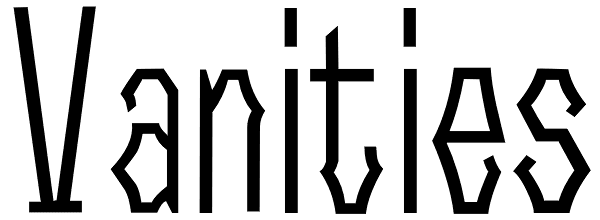
Vanities
A Victorian type which, like so many others, was originally offered without a lowercase. As we do so often, we designed a matching lowercase for it. We also added a shaded version of the caps, figures and points of our earlier Vanities font. A nice...
Vanities
Vanities Shaded